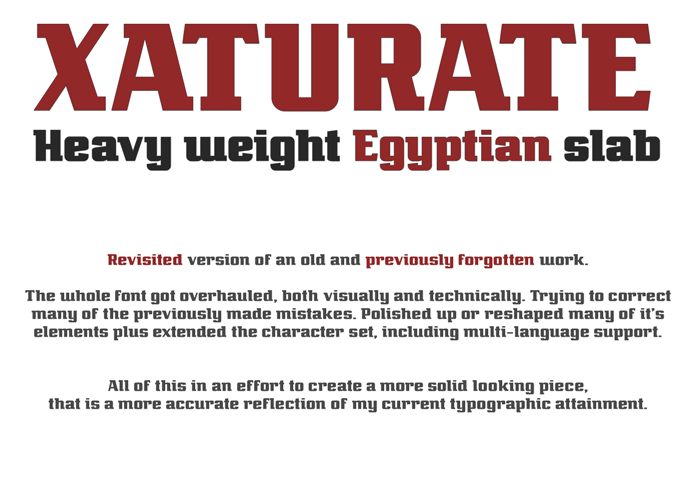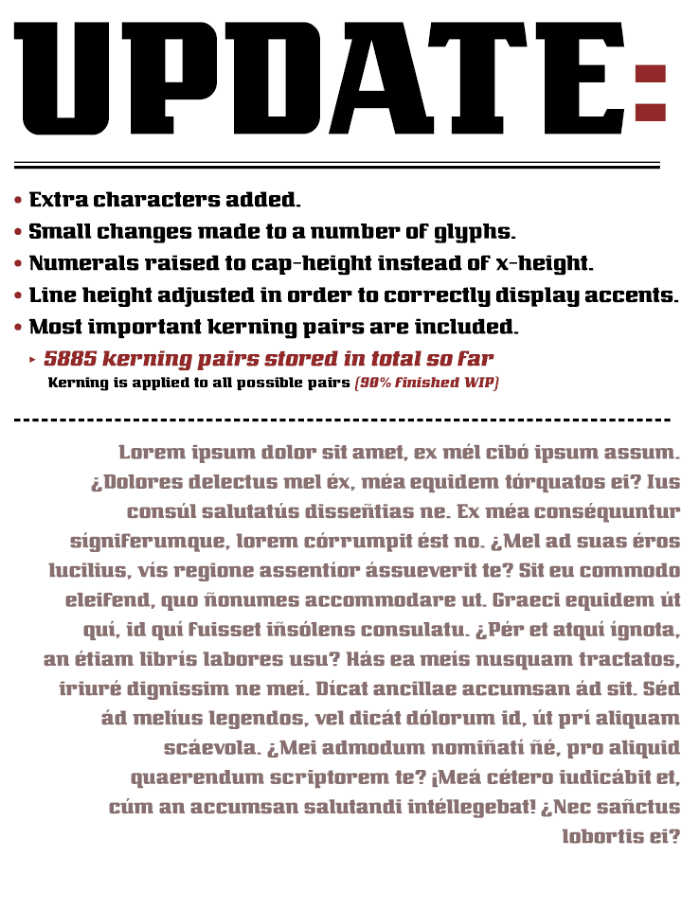
• XATURATE - Heavy weight Egyptian slab
Here is another throwback of my original older works, now refurbished and expanded into a complete font that includes multilingual support.
As part of the recent endeavours into my older FontStruct works, digging for the forgotten and lost potential gems, I stumbled upon this Egyptian style Slab-Serif, called 'XATURATE'.
This classic looking heavy weight Slab-Serif design was left rather  inconsistent and pretty incomplete. I don't remember why I abandoned
this back then, since this letterforms had great potential. They just needed a healthy fresh perspective and a little bit of extra love to make them shine after all.
• polished shape and form
• Rebalenced full character set
• Added multilingual support
• Included many symbols & punctuations
• Overhauled entire metrics
• Partial kerning (WIP)
I couldn't be more happy with the final result,
The tedious work of kerning should be extended to accented vowels and other signs that are in common use in common languages other than English, IMHO. But I like the serifs of the font and its slab and hard look.
@elmo: yes I will try to do the complete set today, thats why I wrote Partial kerning in description above! But at least I will do a full kerning for most west european languages!